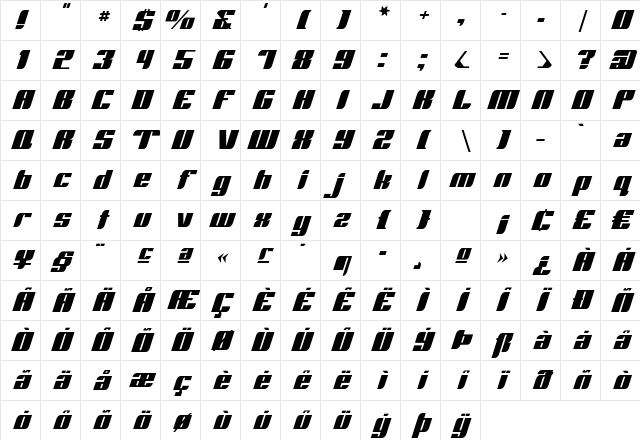
Runway Regular
Foundry: Canada Type / Patrick Griffin
Designer: Patrick Griffin
Design Context for Runway
Runway is a composed and adaptable typeface that performs quietly and consistently across a wide range of design contexts.